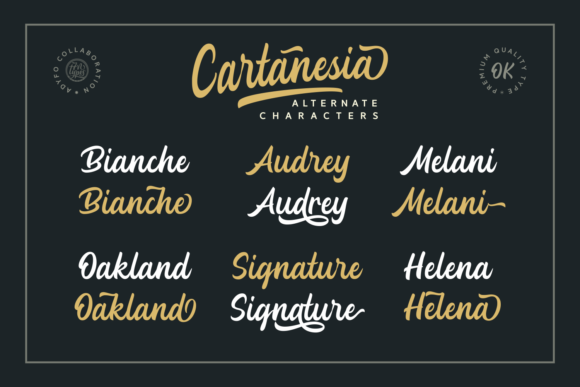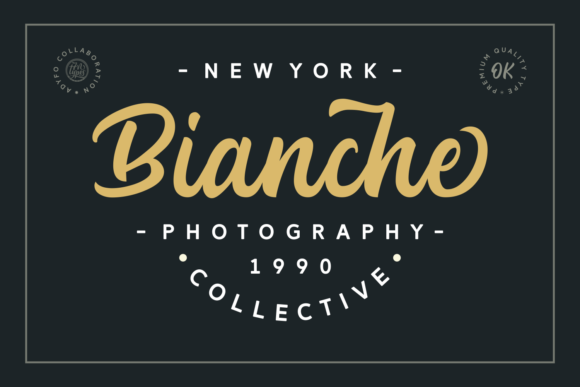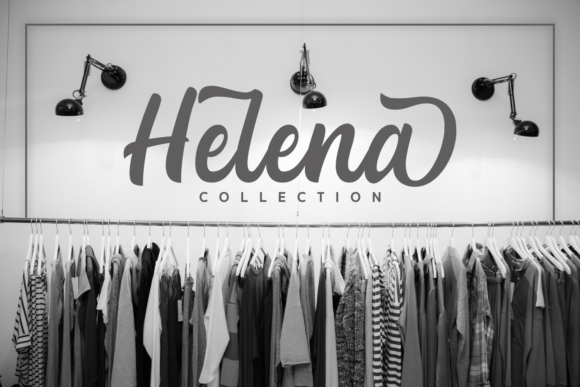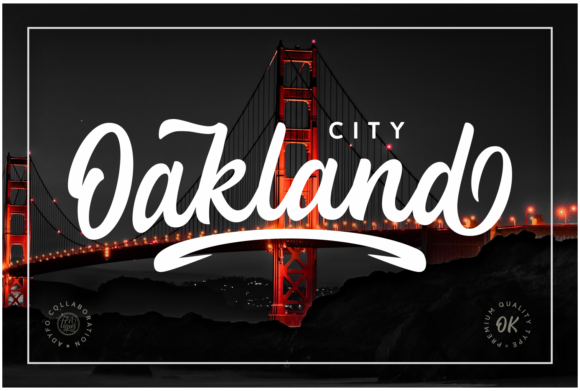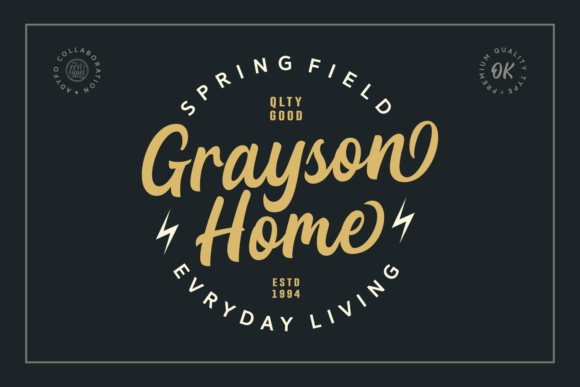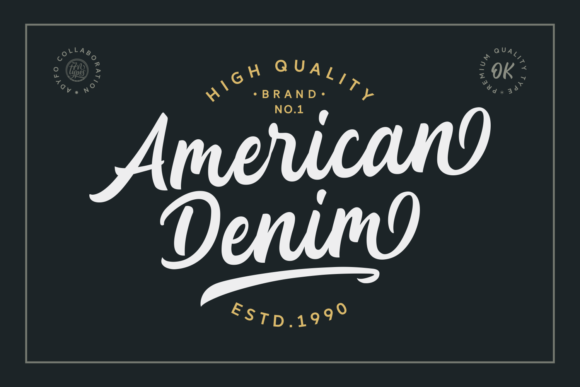
Introduction to Cartanesia Font
Cartanesia is a bold and beautiful handwritten font with a distinct authentic feel.
It will turn any creative project into an eye-catcher .